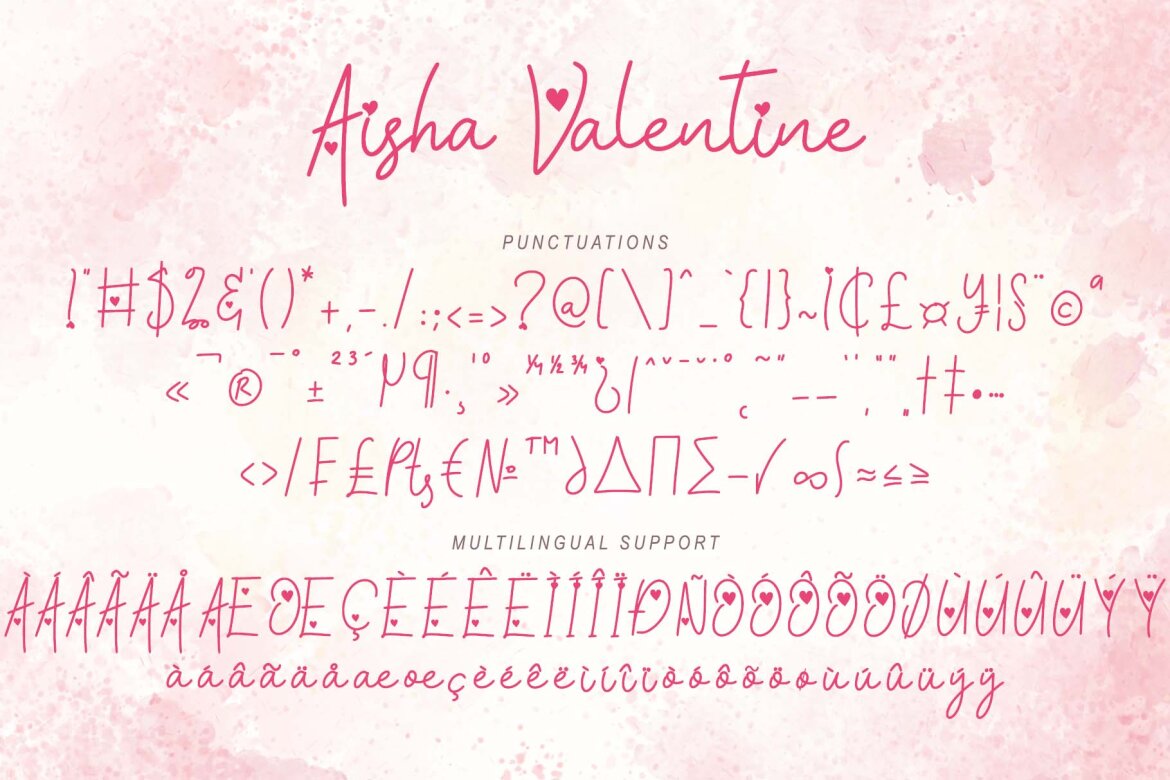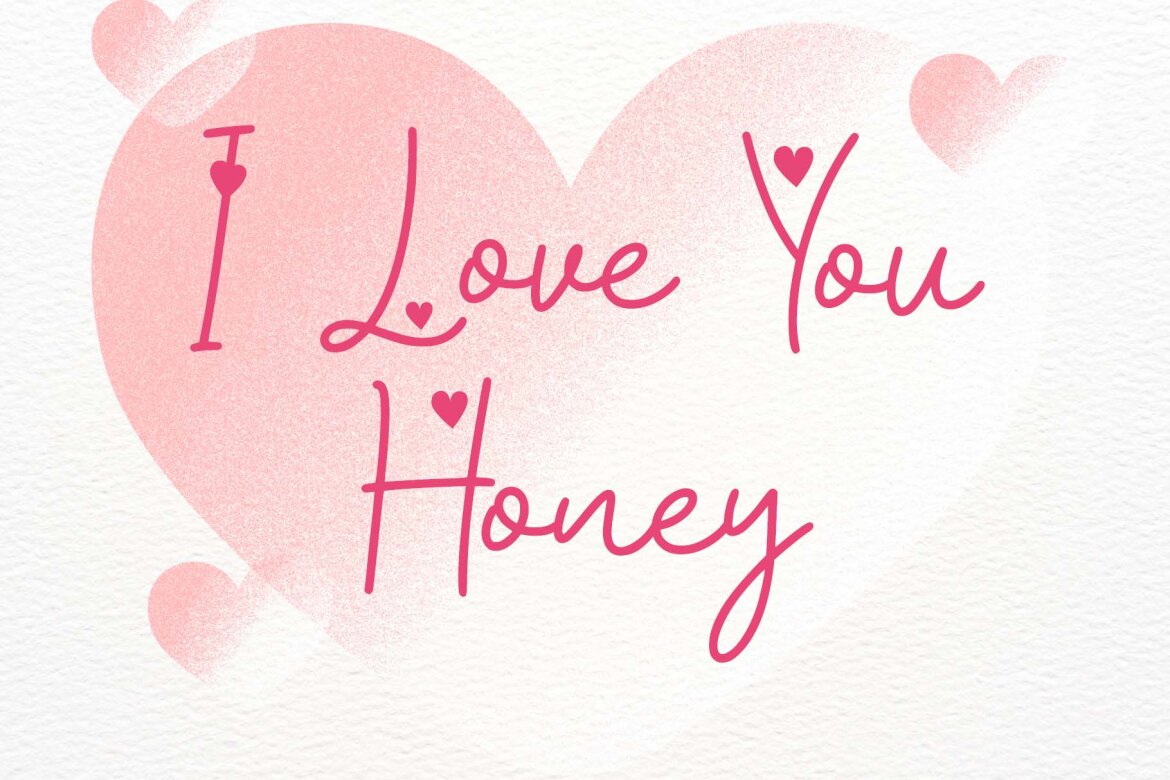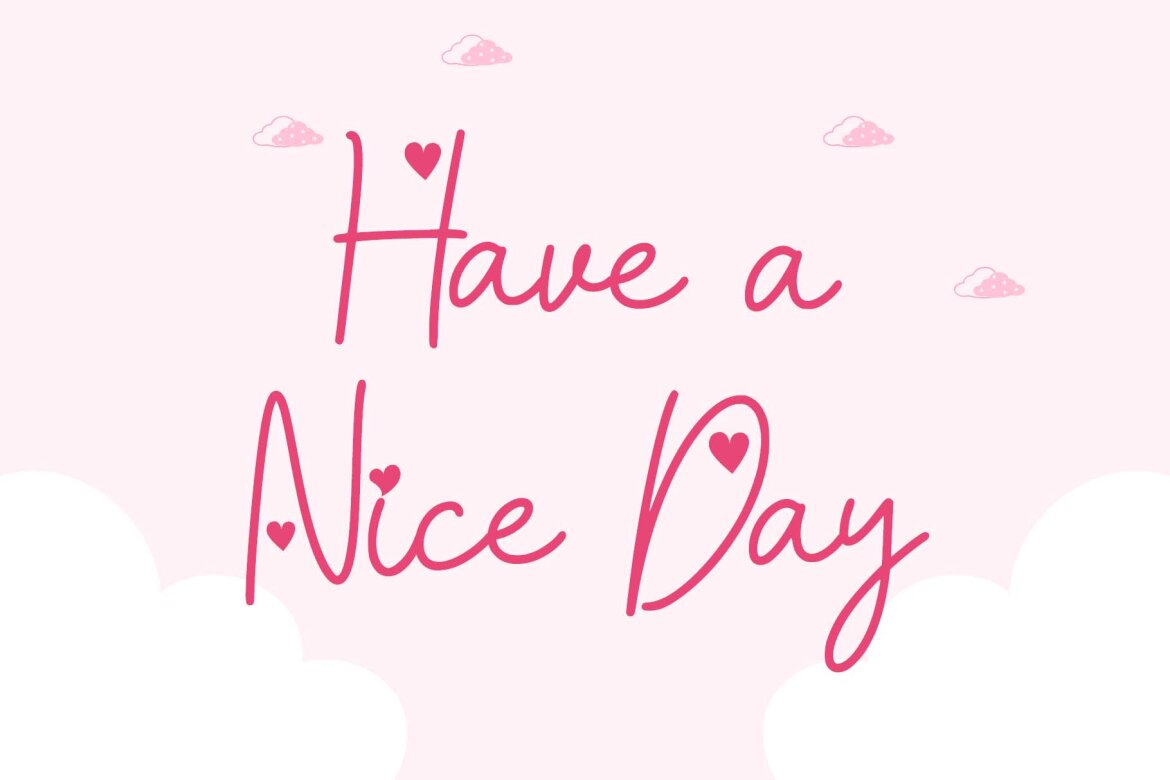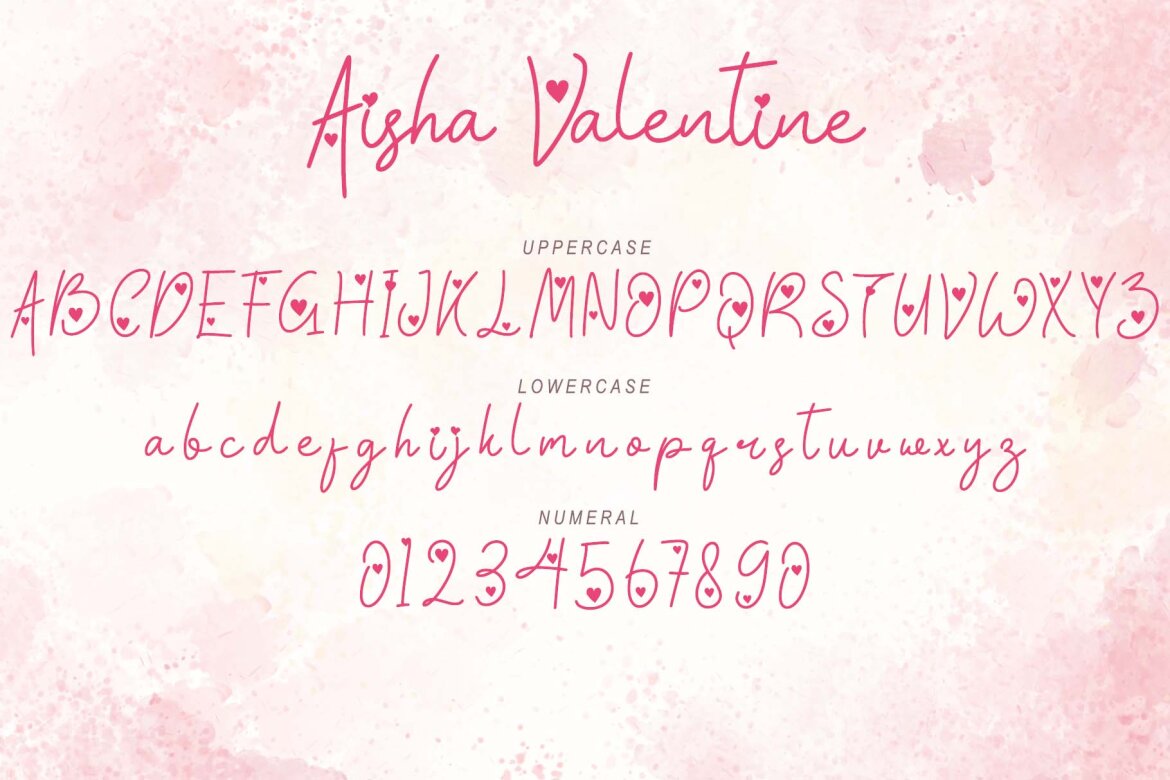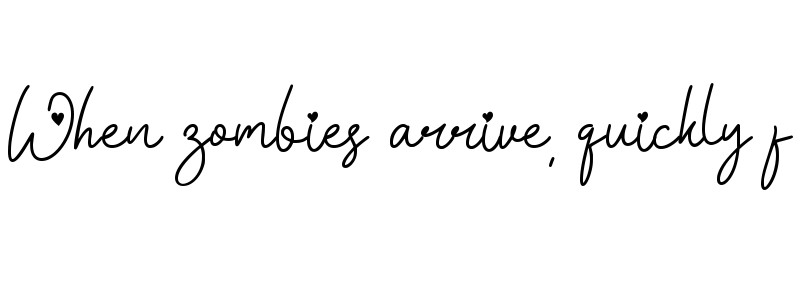
Aisha Valentine FREE Font
Aisha Valentine
"Aisha Valentine" is a beautiful and lovely monoline handwritten font. This font is equipped with uppercase, lowercase, numerals, punctuations and multilingual support. It is very suitable for weddings, invitations, valentines, banners, posters, prints, branding, stickers, logos and others.
• lowercase
• numeral
• punctuations
• uppercase